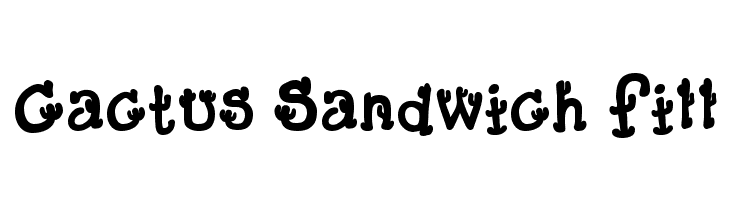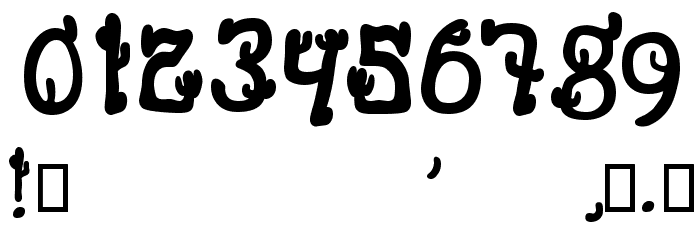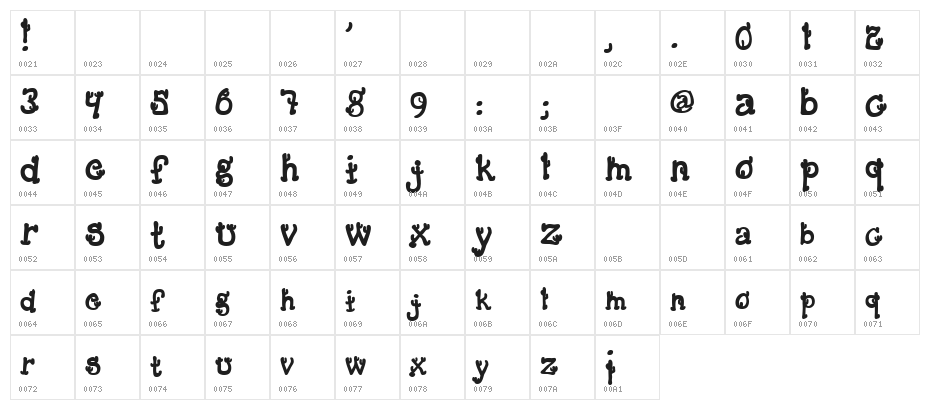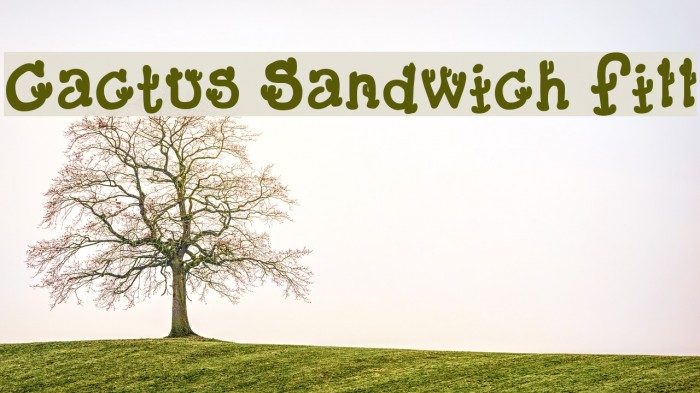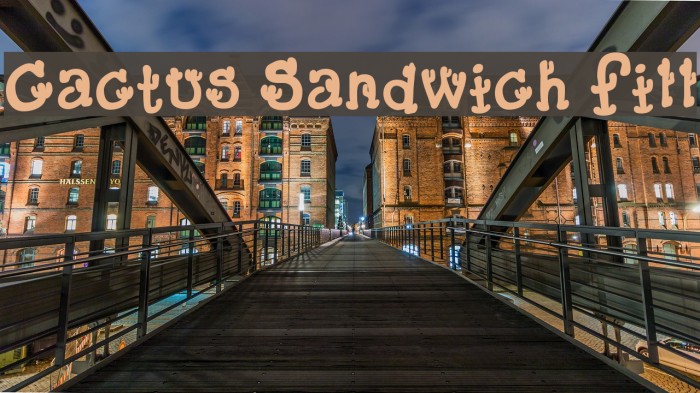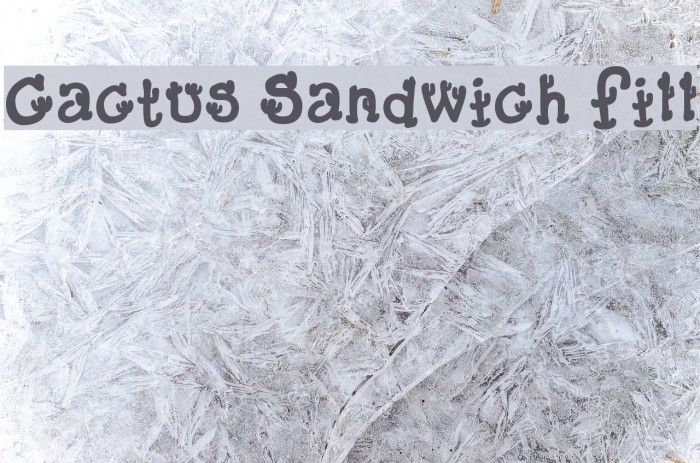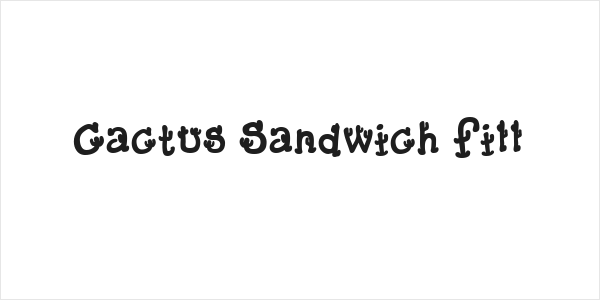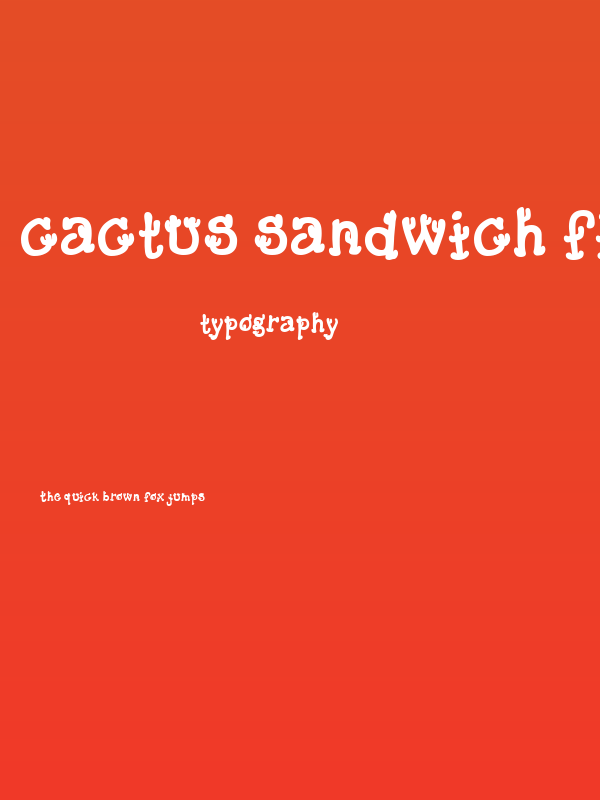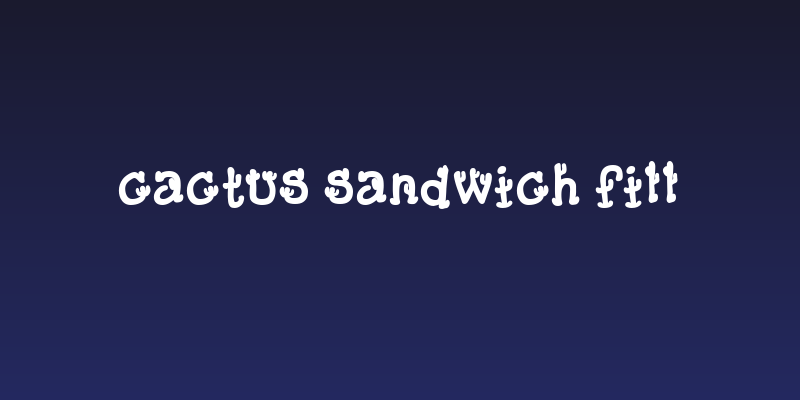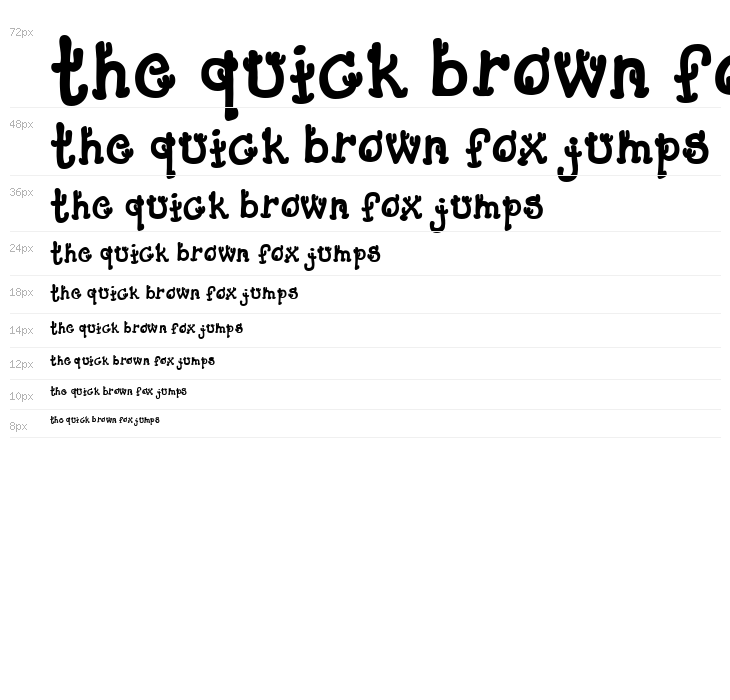
Cactus Sandwich Fill Font
Cactus Sandwich Fill Description
This playful and whimsical font features bold, rounded characters with unique decorative elements resembling small cactus-like protrusions. The letters have a consistent thickness, giving them a solid and robust appearance. The overall design is quirky and fun, making it ideal for creative projects. The font maintains a consistent baseline with slightly exaggerated ascenders and descenders, adding to its charm. The numbers and special characters follow the same playful style, ensuring a cohesive look across all text elements.